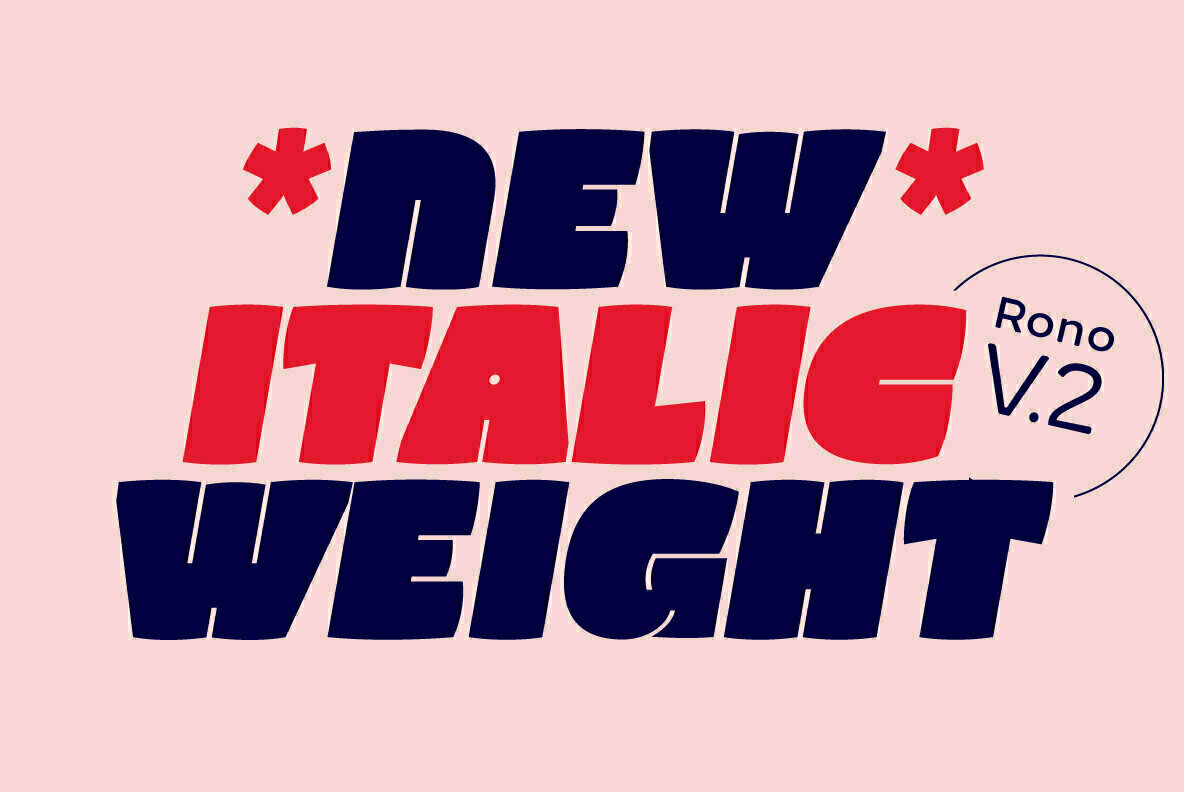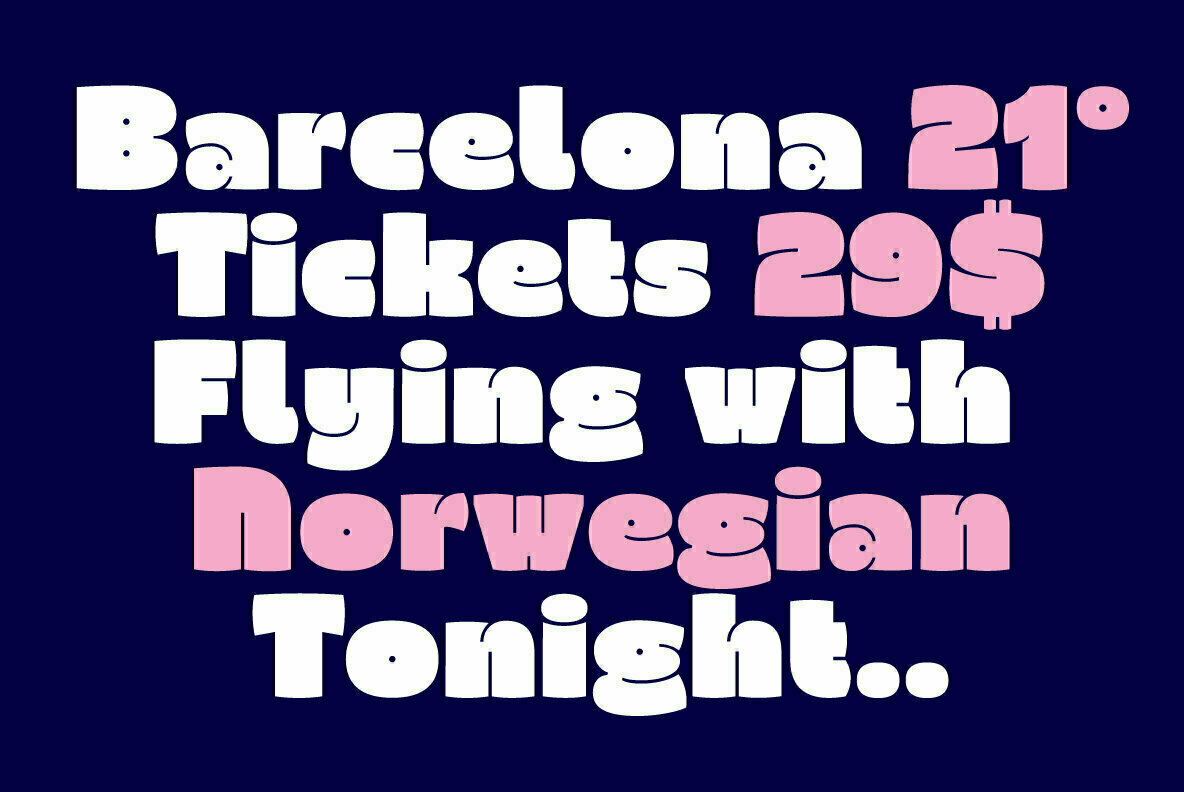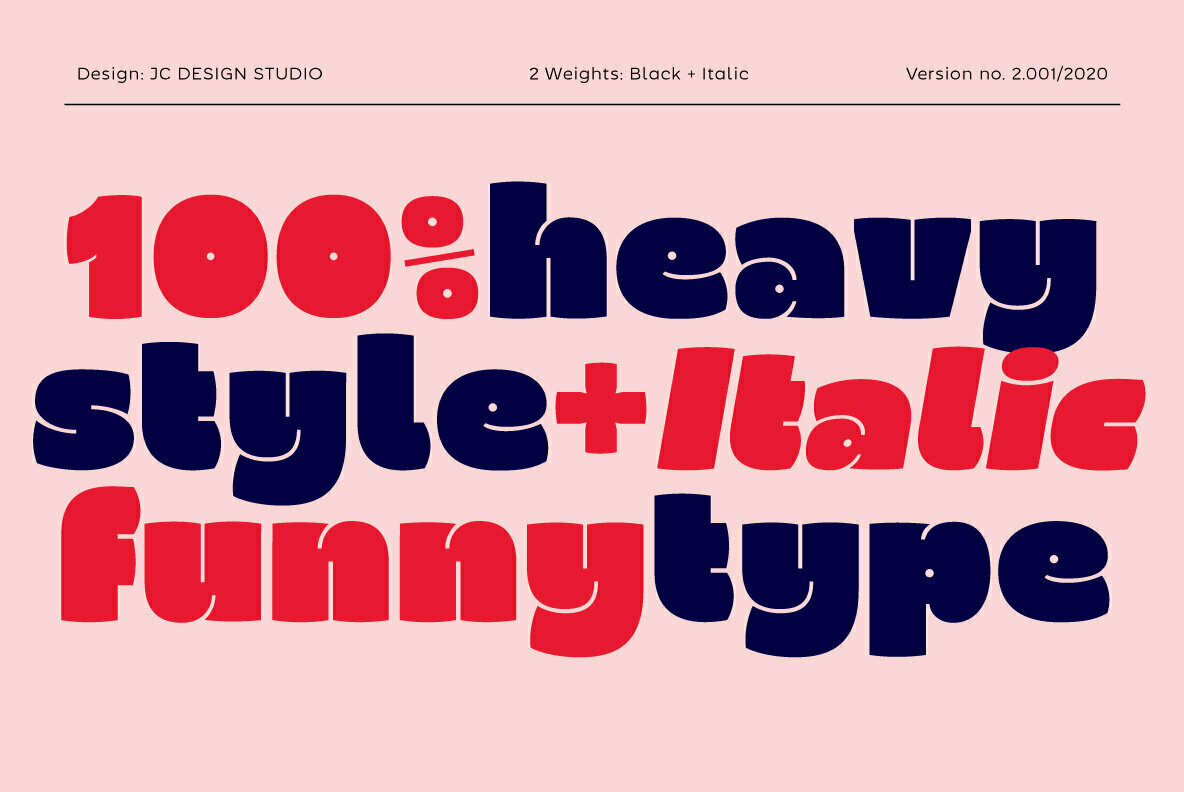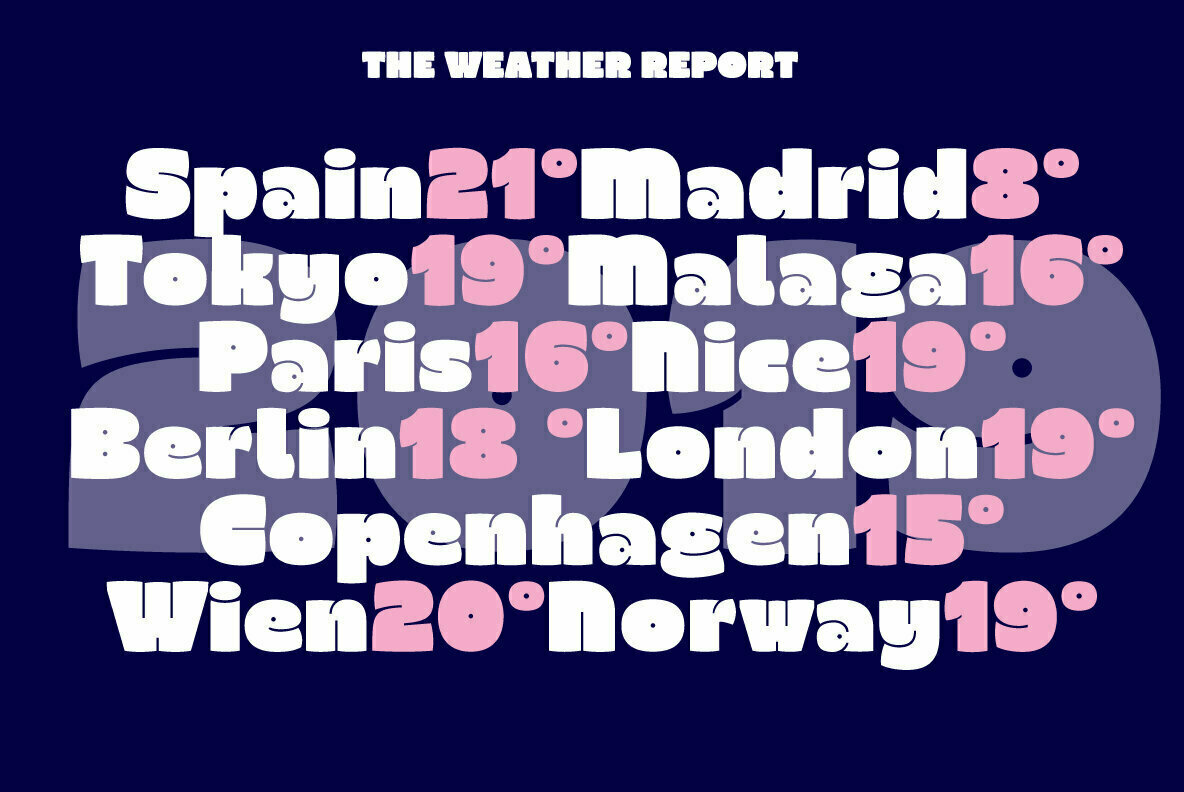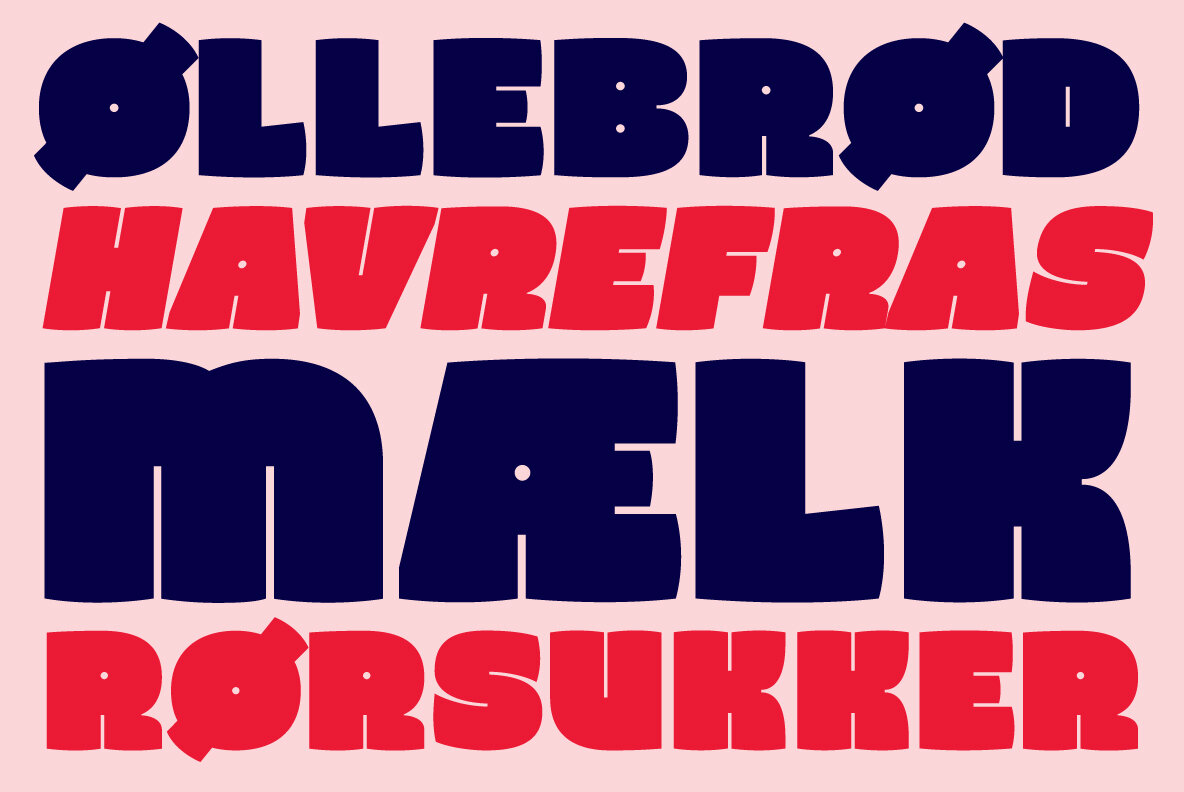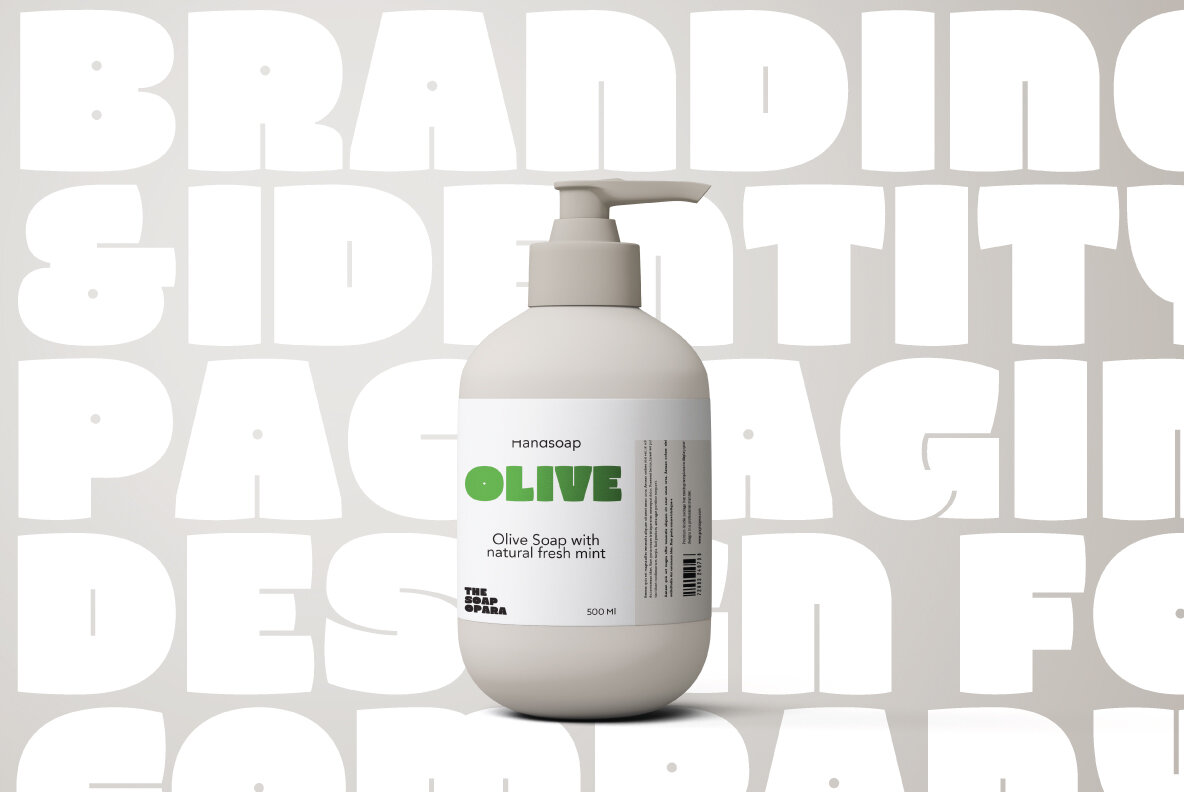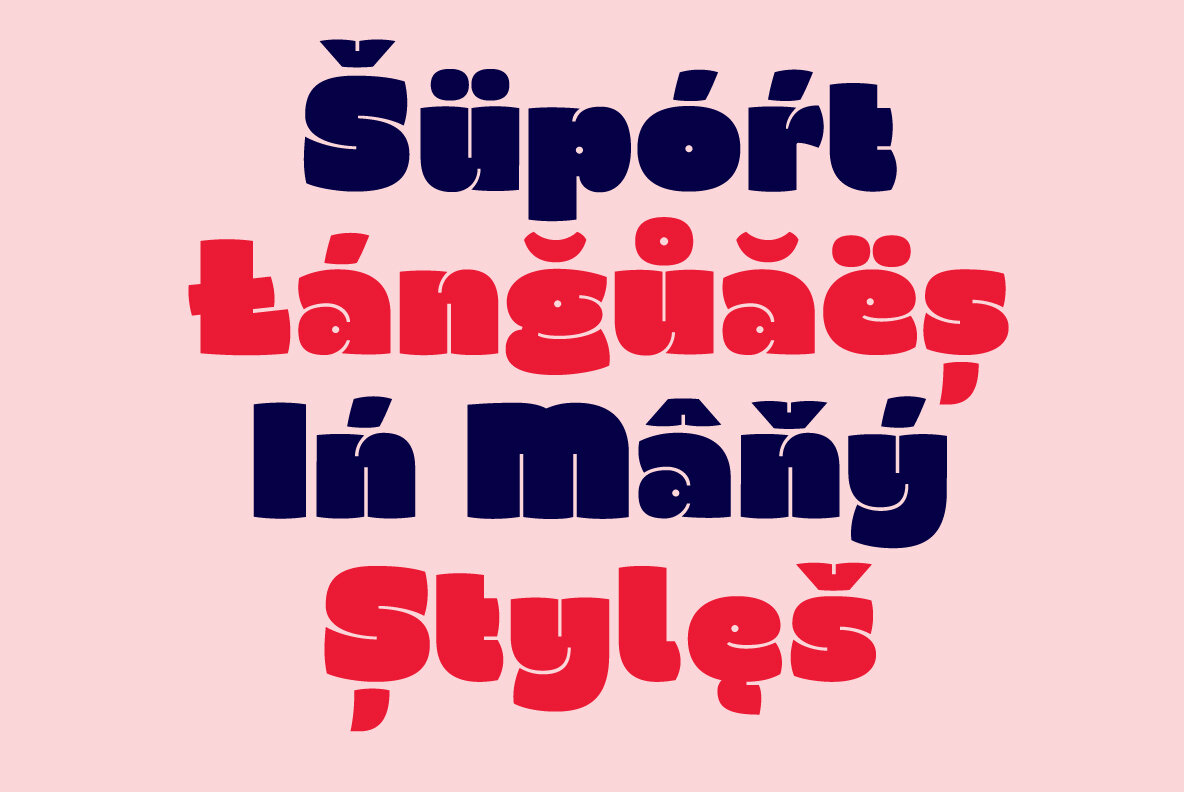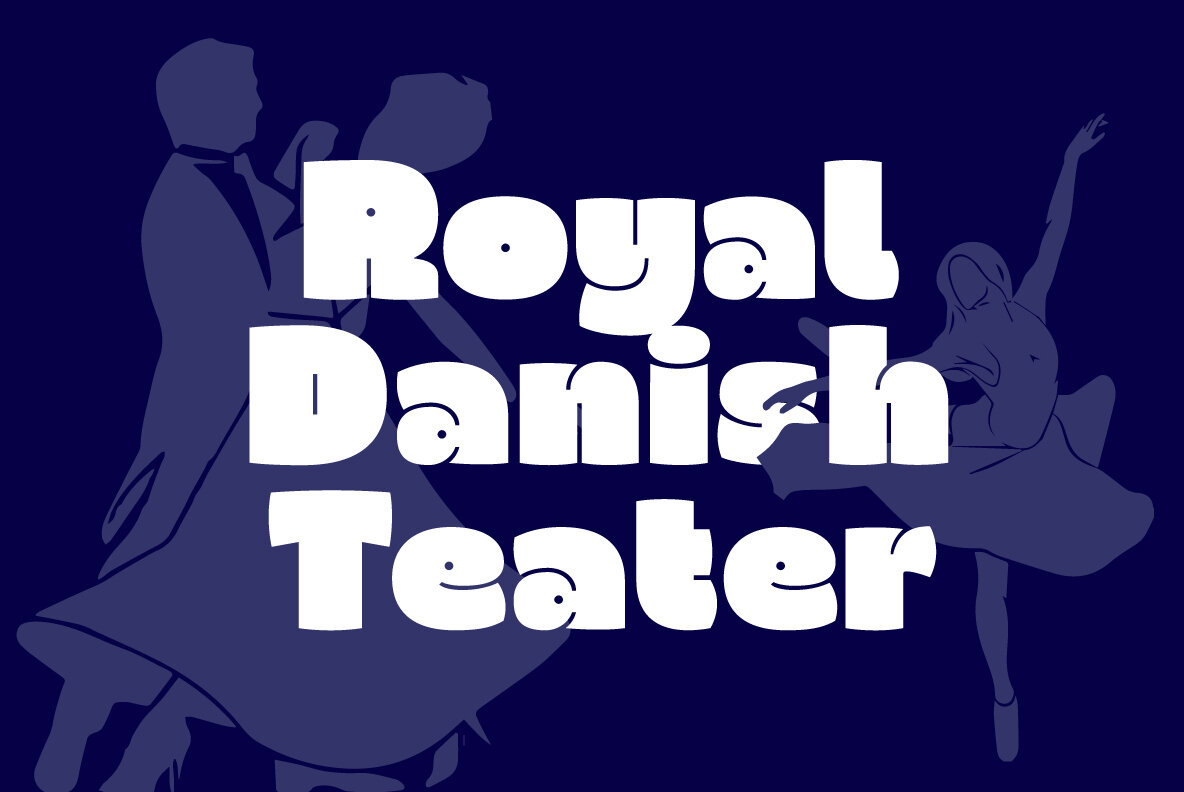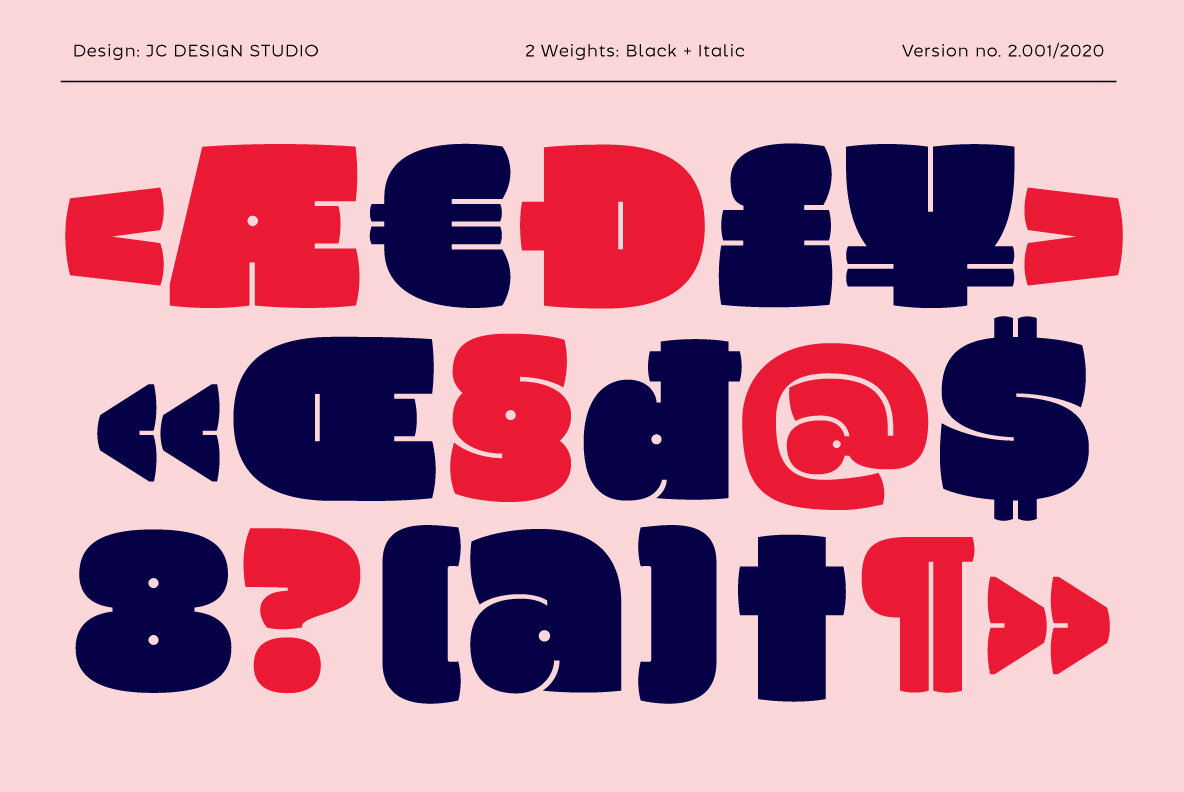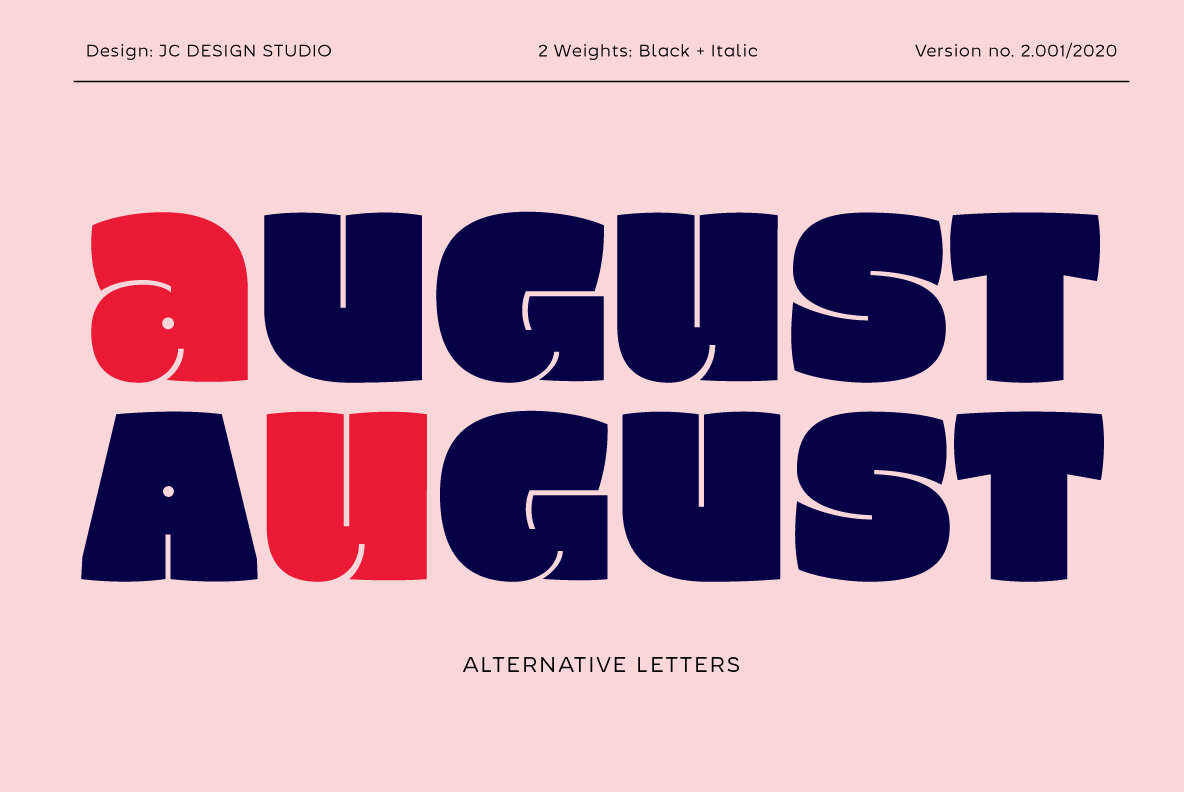
Rono Font
Rono Black
Rono Black Italic
Rono is a heavy friendly font which was a typework I did for a danish company. The starting point for the writing was a conception in making a bold font with soft forms that signals safe and fun. A thick font that can use for many different types of tasks. It's great in use for many things like package design, poster-design, logotypes/visual identities or simple graphic design cases. Even like using for a web project.